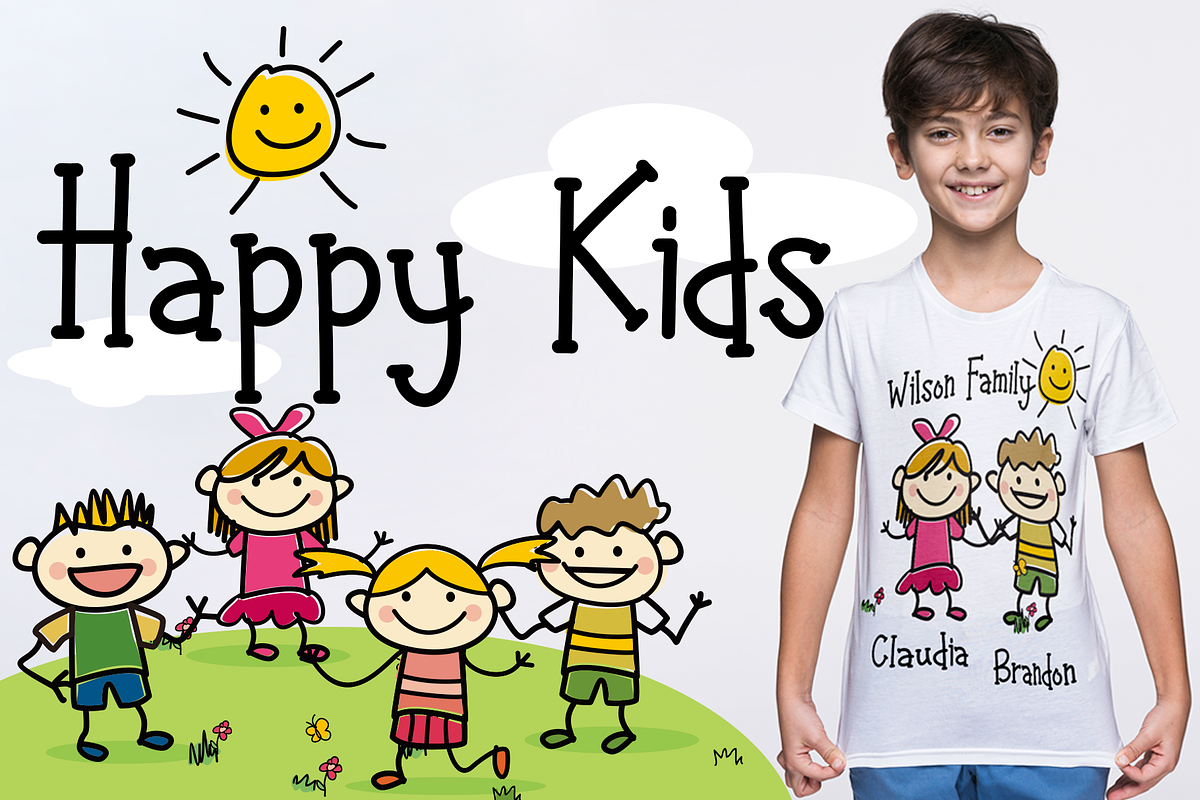
Happy Kids - Playful Font Free Download
Happy Kids – Playful Font Free Download is a fun, bubbly typeface designed to spark joy and imagination in every design. Please note: you must purchase this font for commercial use, but you can test it through a free download. With its rounded shapes, cheerful curves, and energetic feel, Happy Kids is perfect for children’s books, birthday invitations, educational materials, toy packaging, and kid-friendly branding.
This font is all about positivity and play—ideal for designers who want to make their creations feel bright, friendly, and approachable. Whether you’re crafting content for schools, cartoons, or party supplies, Happy Kids – Playful Font Free Download brings the perfect mix of charm and clarity. Fully compatible with Adobe Illustrator, Photoshop, Canva, and more. Download it today for personal use and bring a smile to your next project with the joyful vibe of Happy Kids.